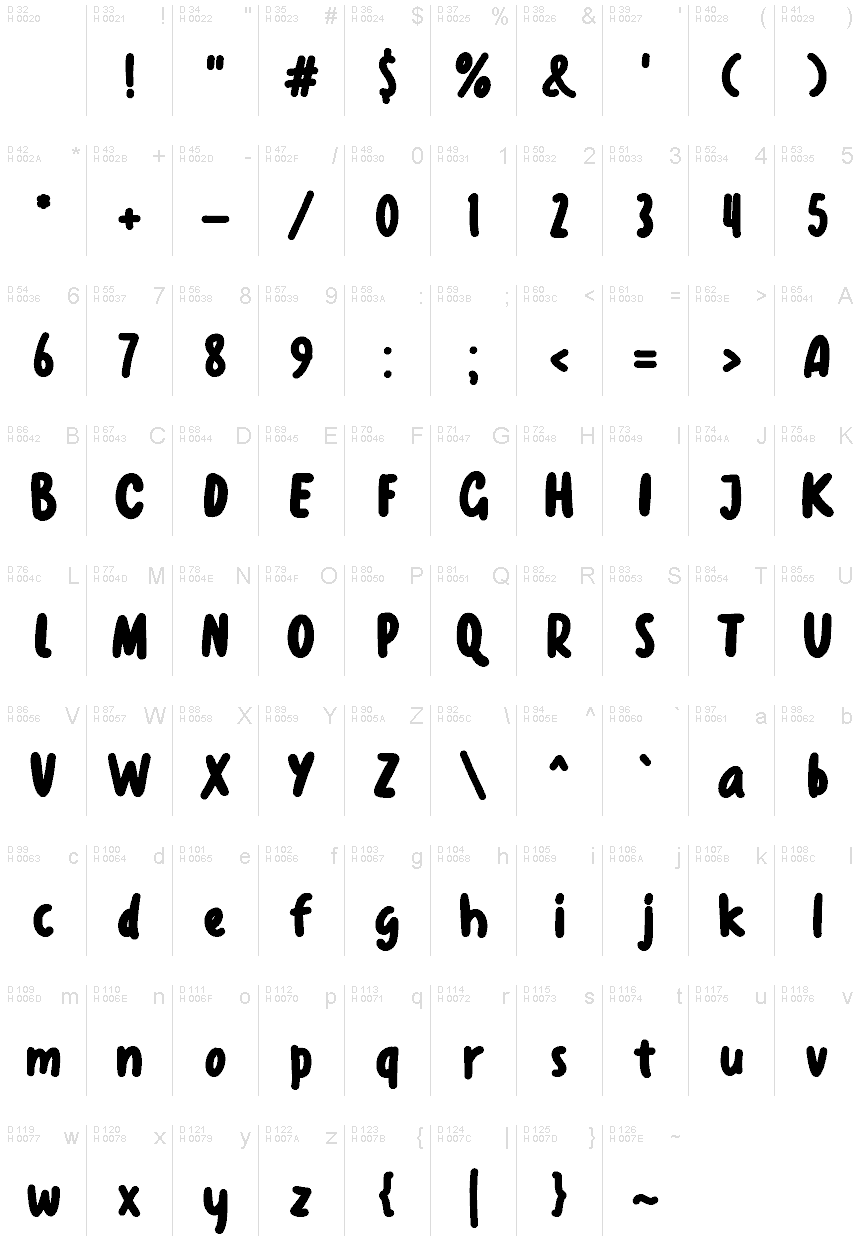
New Freshty - Demo
New Freshty font by Tera Asset Garage is a bold, condensed handwritten font with a modern appeal. Its chunky, rounded characters are casual and relaxed, making it an approachable design. It balances showy curves and slanting letters to blend the spirit of handwritten fonts with an artistically modern style.